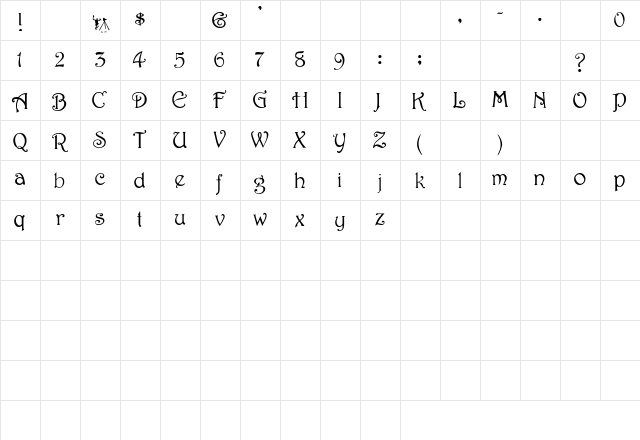
Harrington Regular Free Font
Harrington Regular
Design Context for Harrington
Harrington is a composed and adaptable typeface that performs quietly and consistently across a wide range of design contexts.